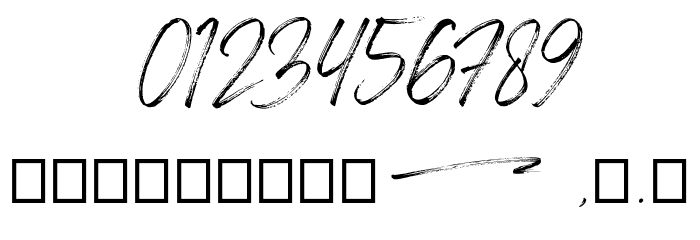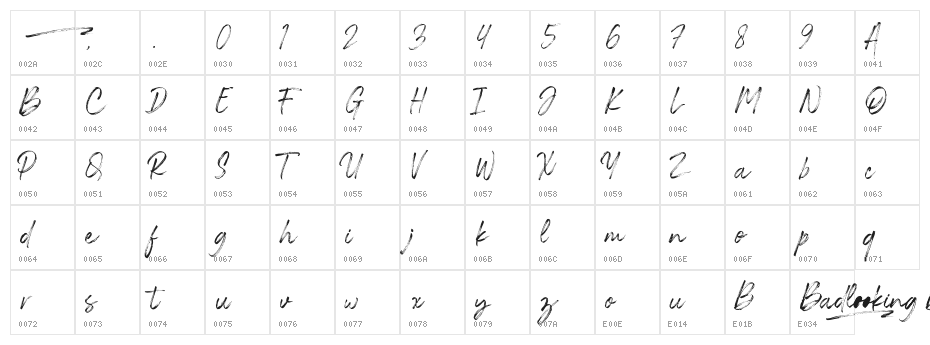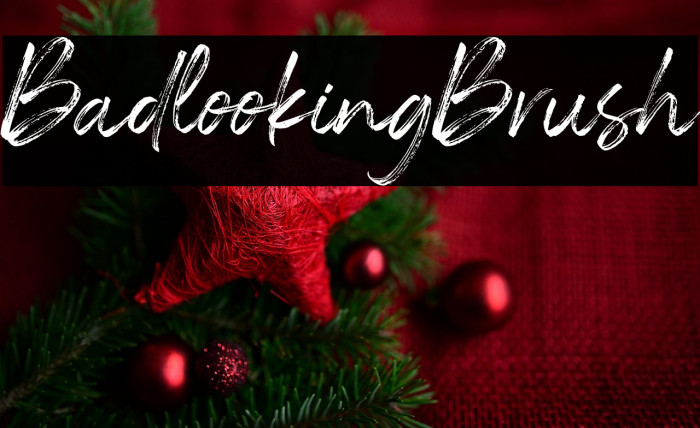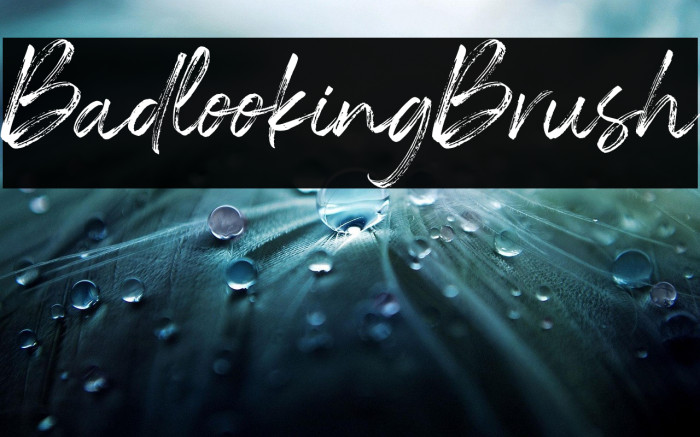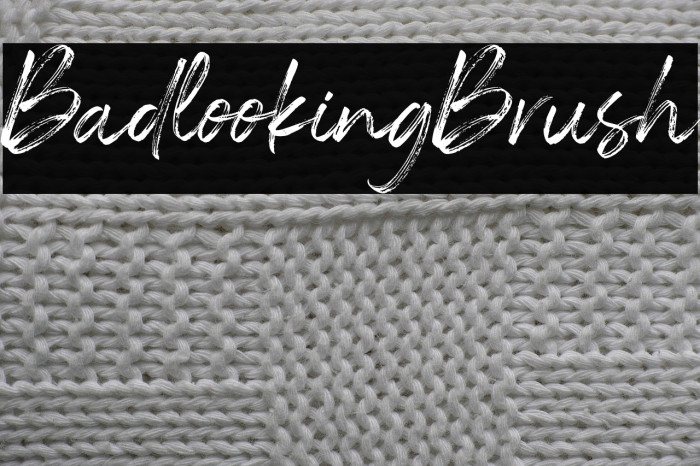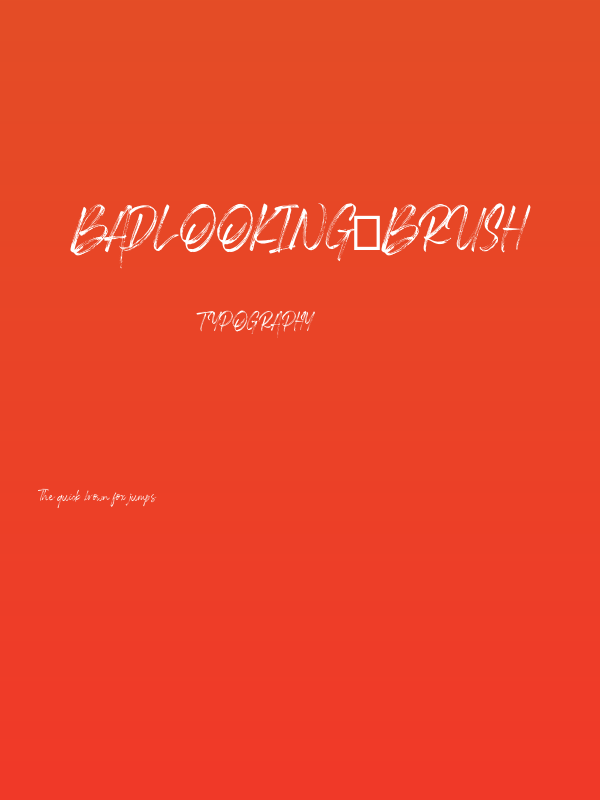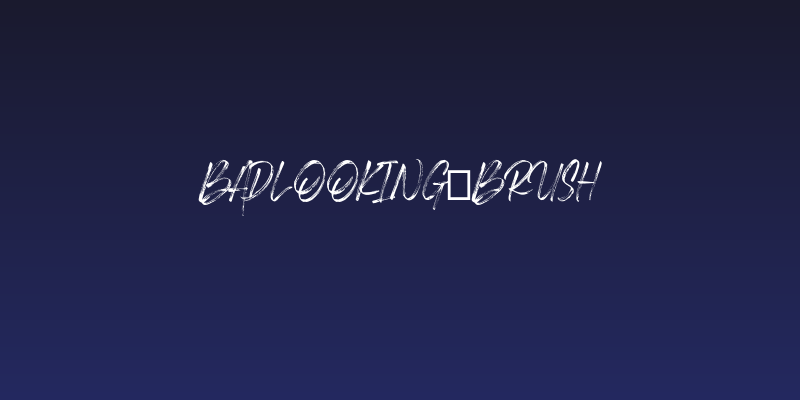
Badlooking_Brush Font
Badlooking_Brush Description
This expressive brush script font exudes a dynamic and artistic flair, characterized by its bold, sweeping strokes and textured appearance. The letters are crafted with a sense of movement, giving them a hand-painted look that is both energetic and organic. The uppercase and lowercase letters maintain a consistent style, with varying stroke widths that add to the font's lively and spontaneous feel. The numerals and special characters are equally expressive, ensuring a cohesive look across all text elements. This font is ideal for projects that require a personal touch or a creative, informal vibe.